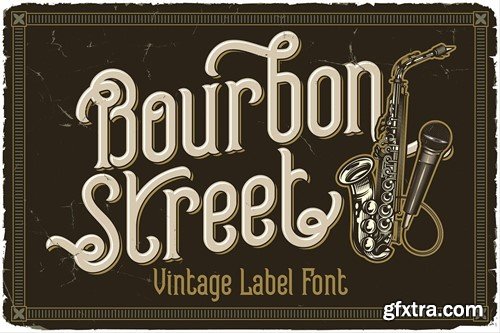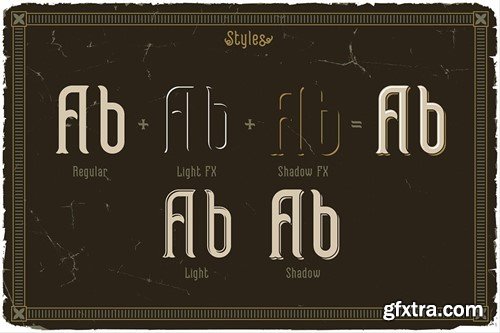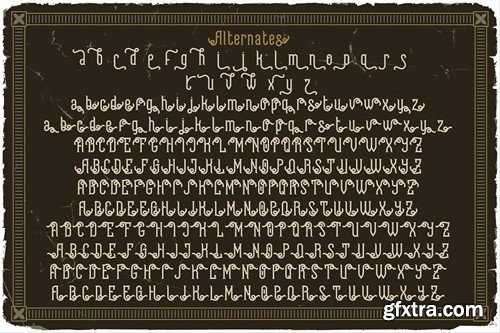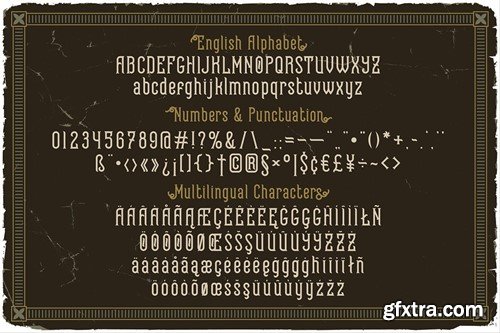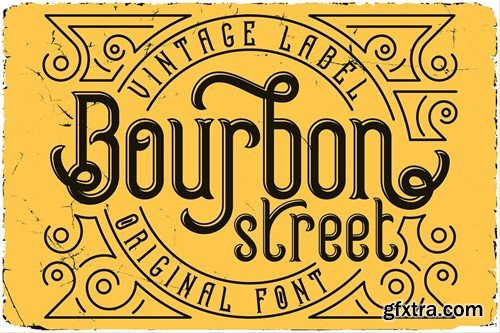
Bourbon Street Display Font LVN6RST
Bourbon Street Display Font
Unique monoline, vintage & decorative serif font. Comes with multilingual support & a lot of alternates - great for your new logo or branding project.
• Multilingual support and lot of alternates
• Great for retro or vintage style branding projects